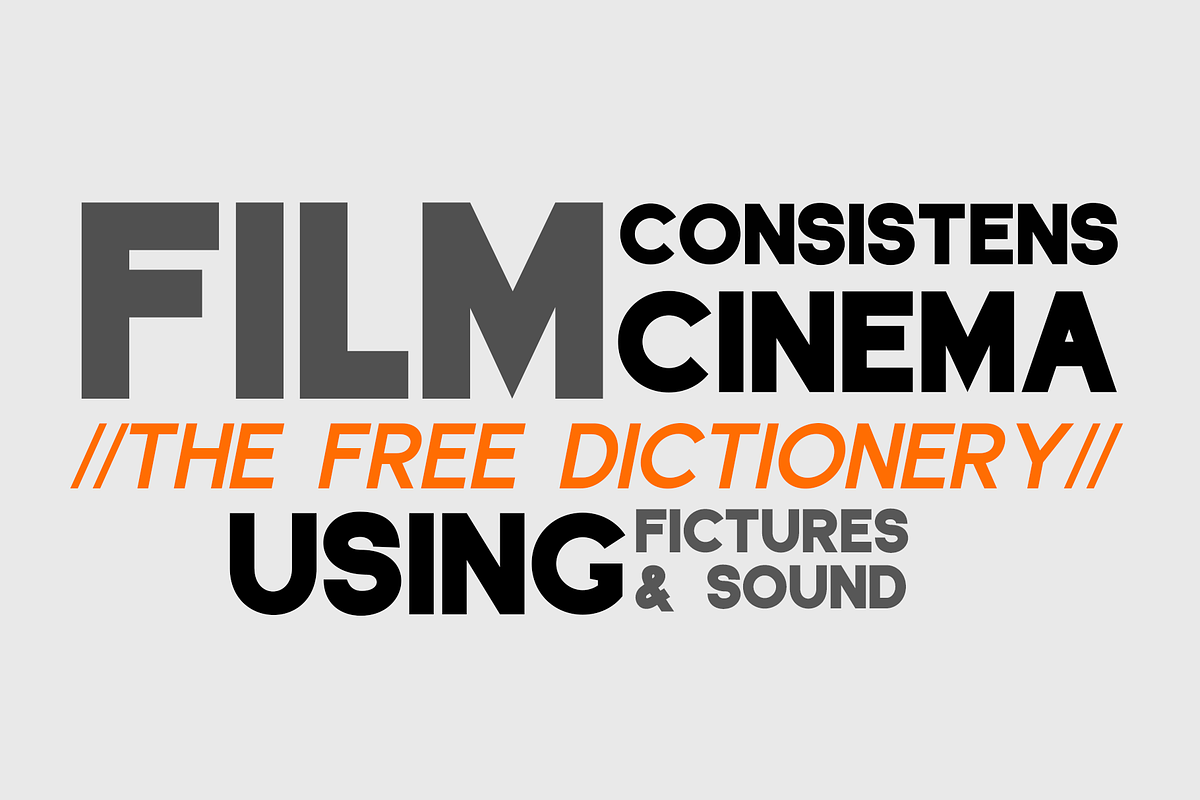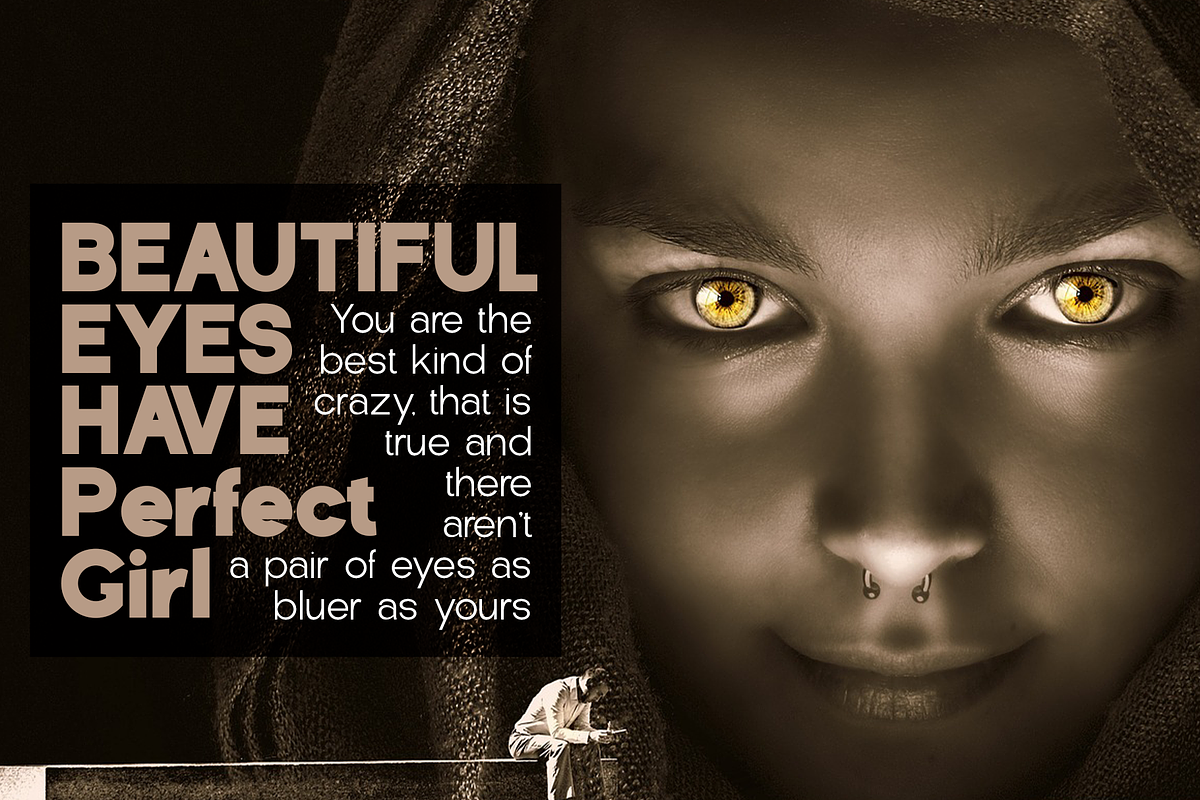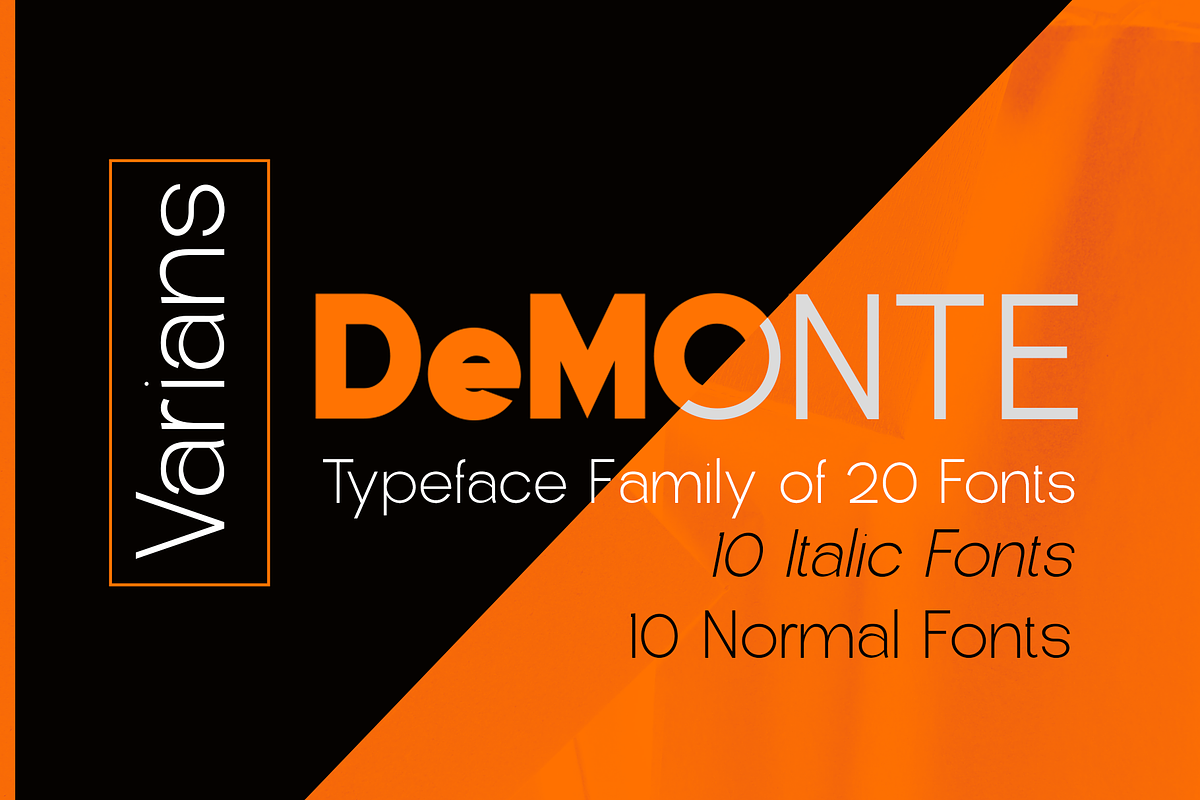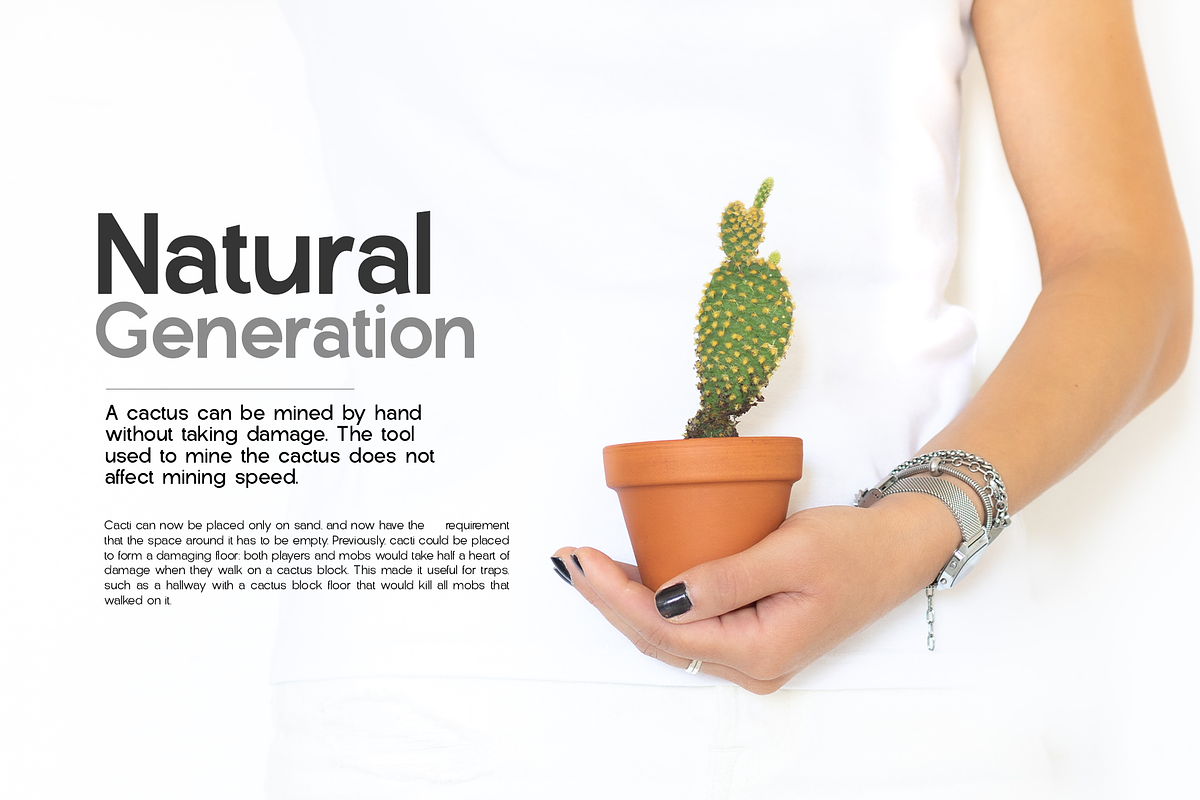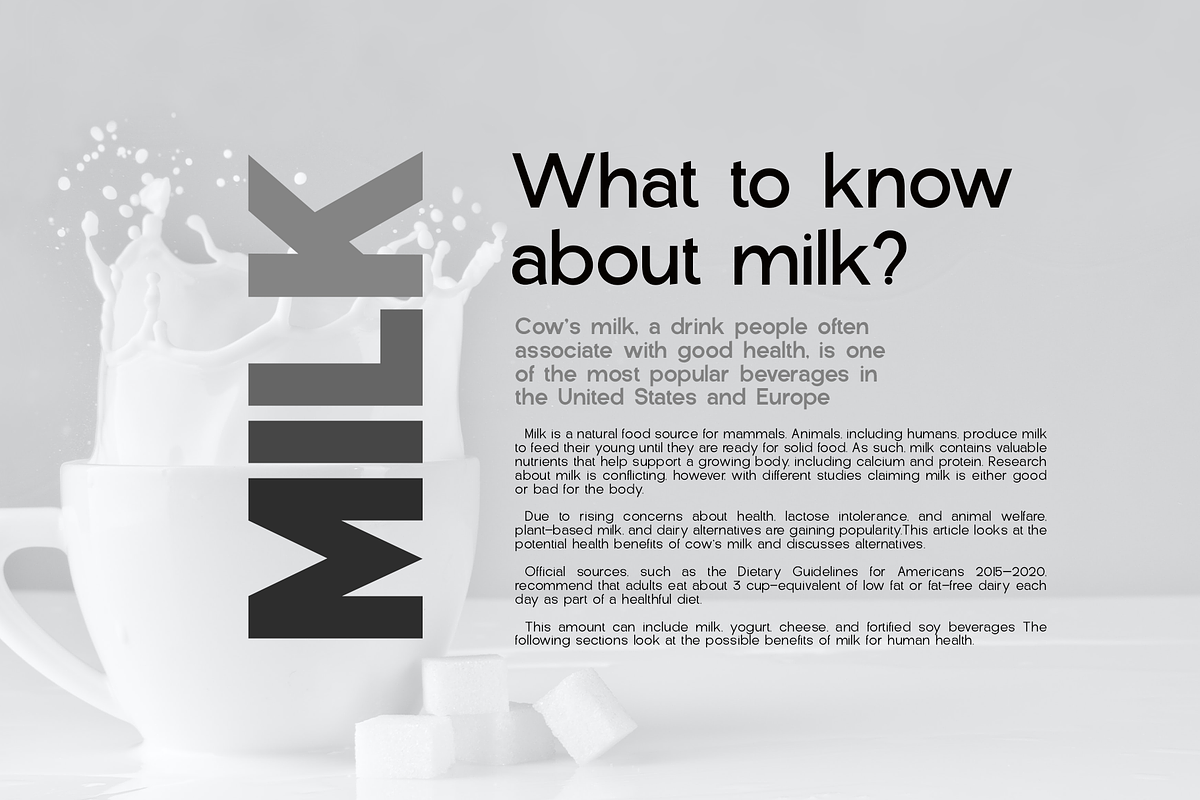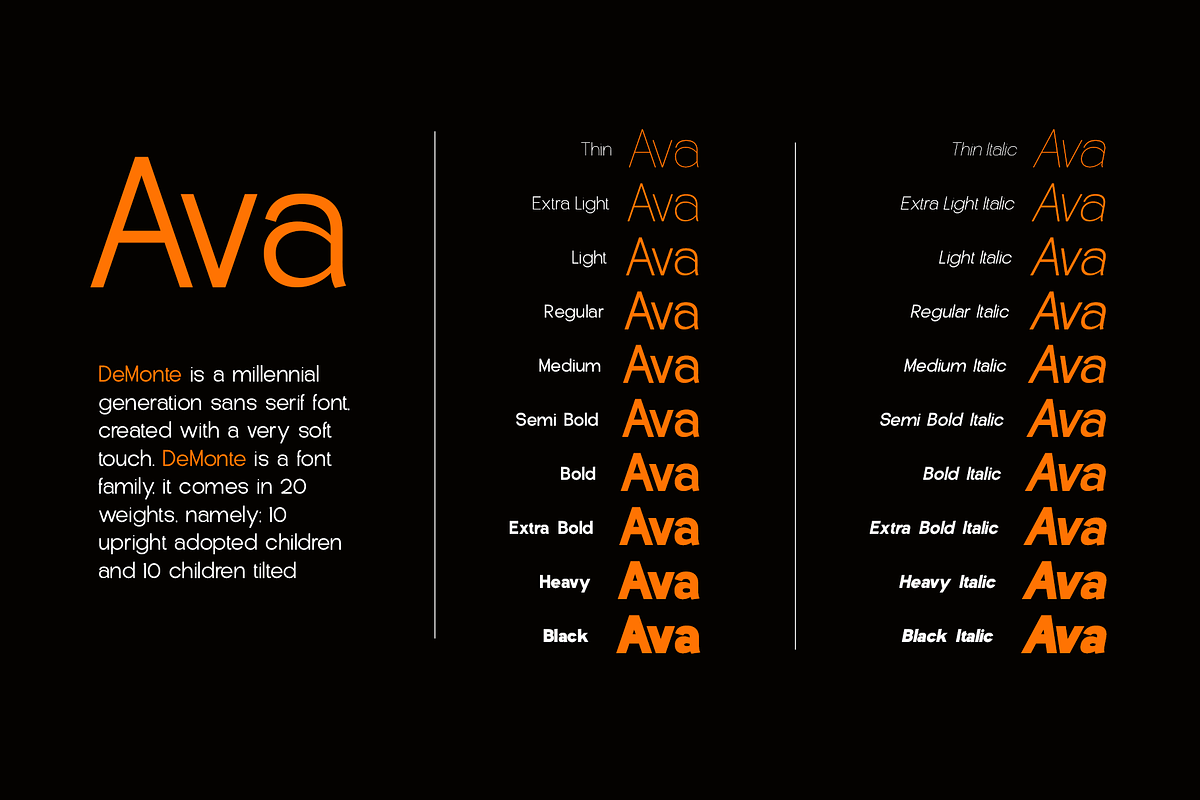
DeMonte fAMILY
DeMonte is a millennial generation sans serif font, created with a very soft touch. DeMonte is a font family, it comes in 20 weights, namely; 10 upright adopted children and 10 children tilted
DeMonte does well in every branding, logo, magazine, film. The different weights give you a wide host of applications, while the outlined fonts give a real modern feel to any project.
Multilingual support for various languages including: French, German, Spanish, Portuguese, Italian, Dutch, Finnish, Swedish, and more.